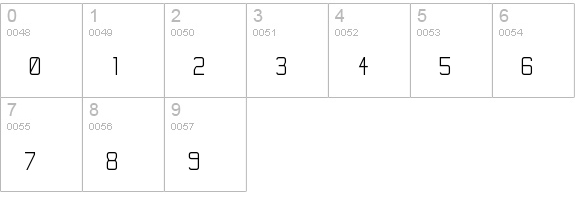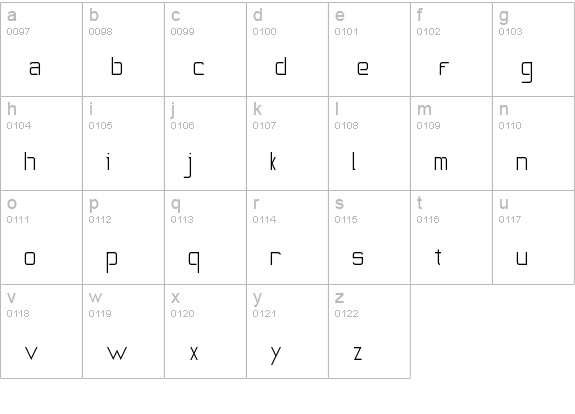
Corporate Gothic NBP Regular is the standard, neutral variant in the Corporate typeface family \xE2\x80\x94 well suited to general body text, paragraphs, and standard typographic work.
Corporate Gothic NBP Regular font is a modern yet elegant typeface that exudes professionalism and sophistication. Its sleek lines and sharp edges make it the perfect choice for corporate logos, branding materials, and business presentations. With its bold and commanding presence, Corporate Gothic NBP Regular font demands attention and establishes a strong visual identity for any project. Its timeless design ensures that it will remain relevant and stylish for years to come. This font is not only visually appealing, but also highly versatile. It can be used for both headlines and body text, making it suitable for a wide range of design applications. Its legibility ensures that your message will be conveyed clearly and effectively. What sets Corporate Gothic NBP Regular font apart is its availability as a free download on FontsMarket.com. This means that you can enjoy the benefits of this premium font without having to spend a dime. It's a rare opportunity to access such a high-quality font at no cost. Whether you are a professional designer looking to enhance your creative projects or a business owner seeking to establish a strong brand presence, Corporate Gothic NBP Regular font is the ideal choice. Its modern and sophisticated aesthetic, coupled with its free availability, makes it a valuable asset for any design arsenal. Take advantage of this opportunity and download Corporate Gothic NBP Regular font for free at FontsMarket.com.